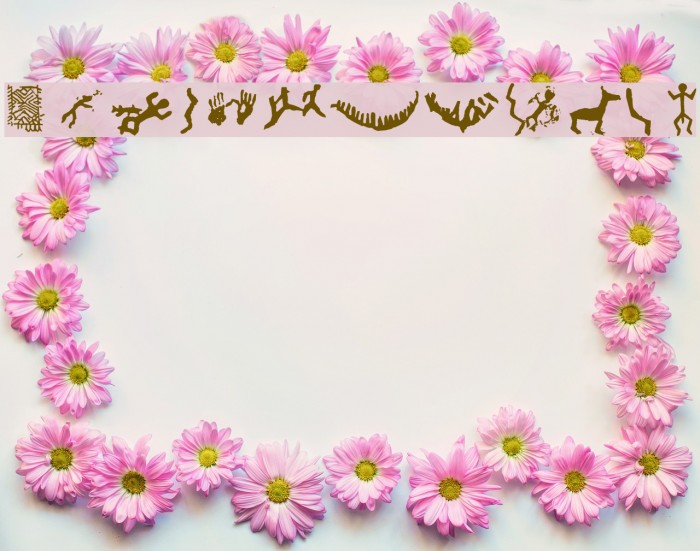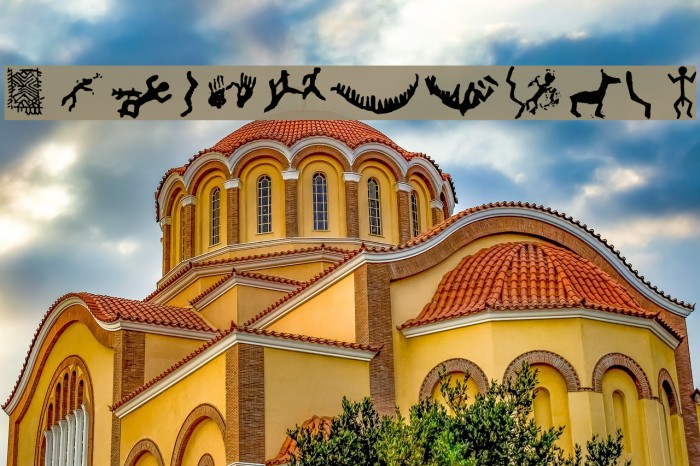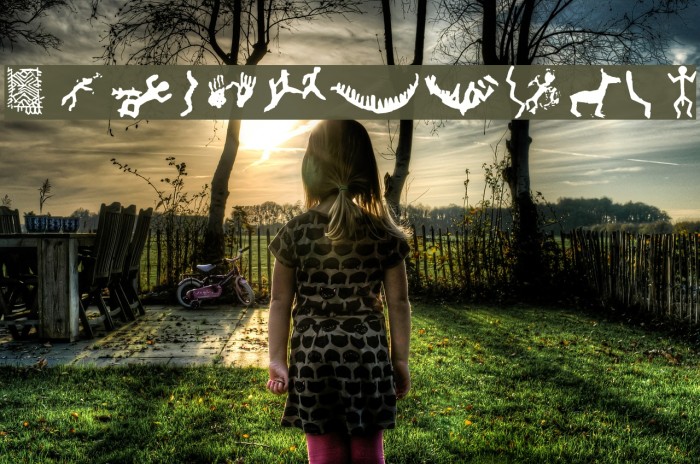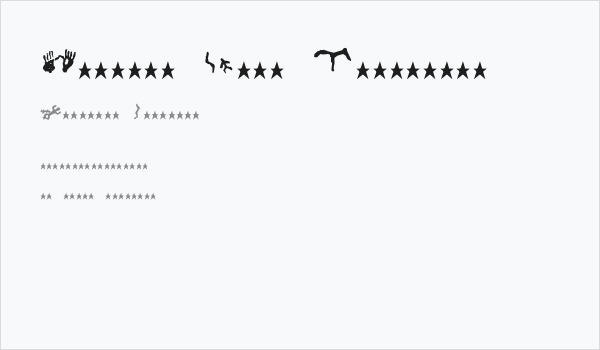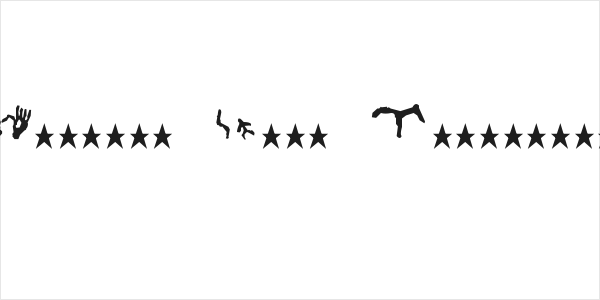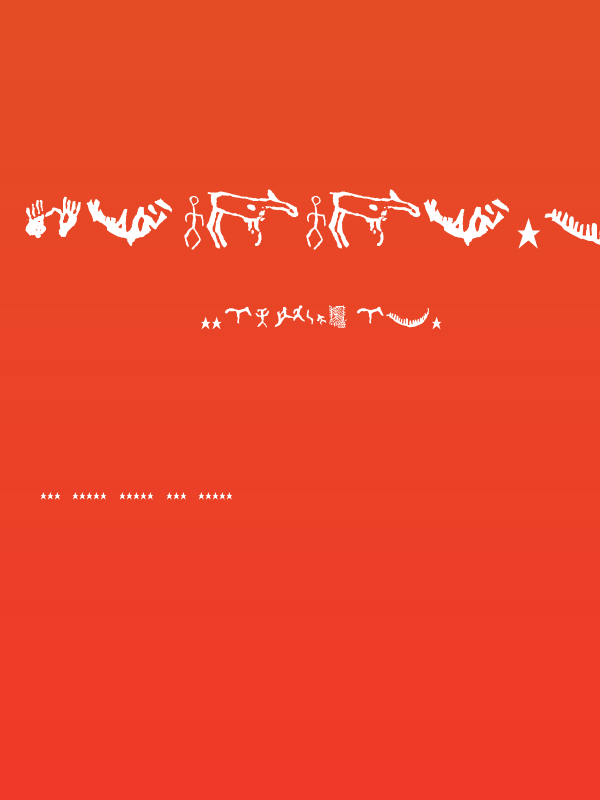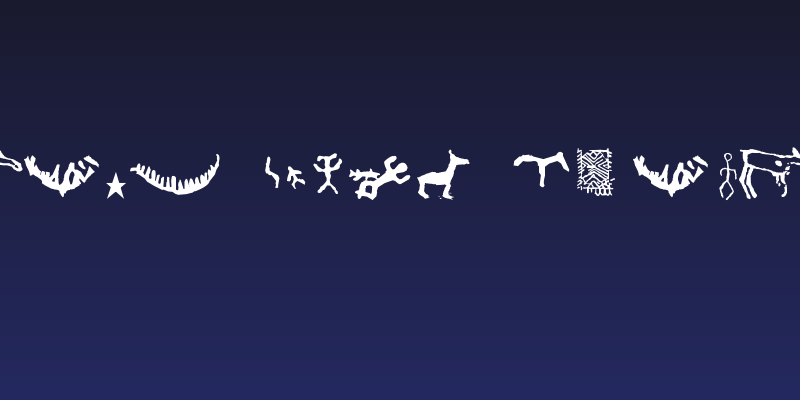
Finnish Rock Paintings Font
Finnish Rock Paintings Description
A highly decorative font inspired by ancient rock paintings, featuring irregular, hand-drawn glyphs that resemble primitive pictographs and symbols. The characters are uneven, organic, and evoke a sense of historical or archaeological context.
Overall StyleDecorative, Primitive, Historical
Use CaseLogos, Posters, Themed Headlines, Educational Graphics
Proposed ProjectsHistorical displays, educational materials, museum signage, themed posters, creative projects referencing ancient cultures.